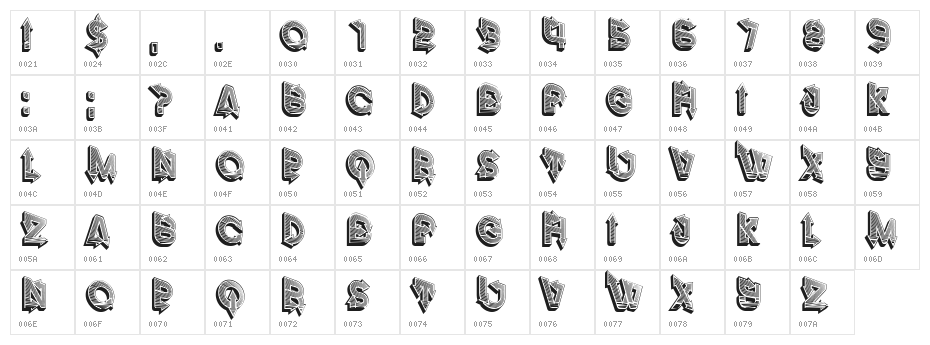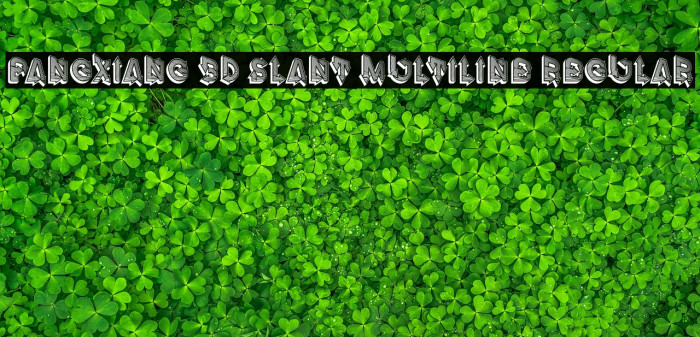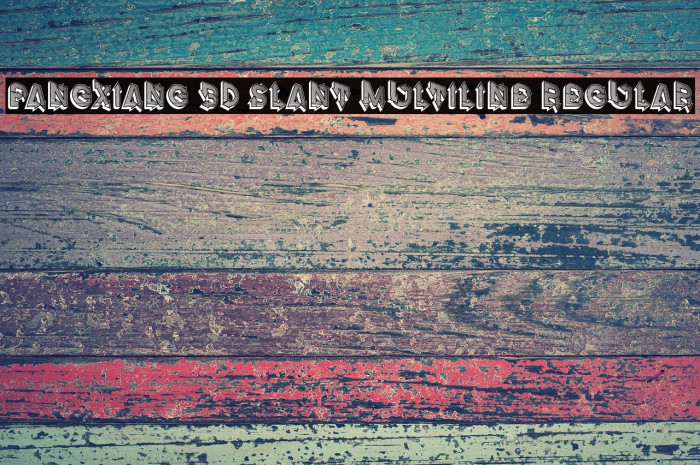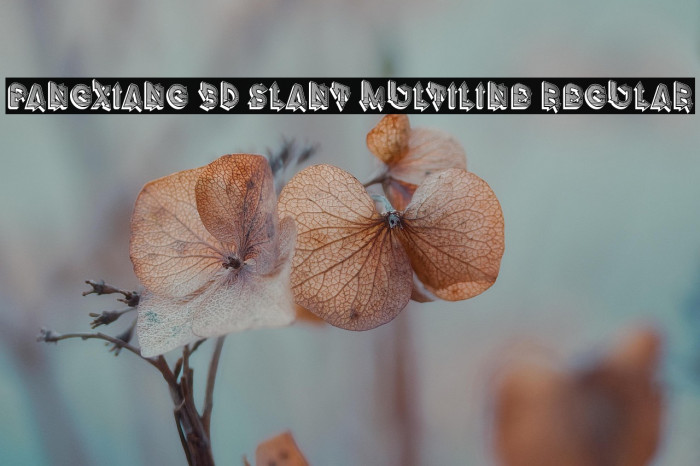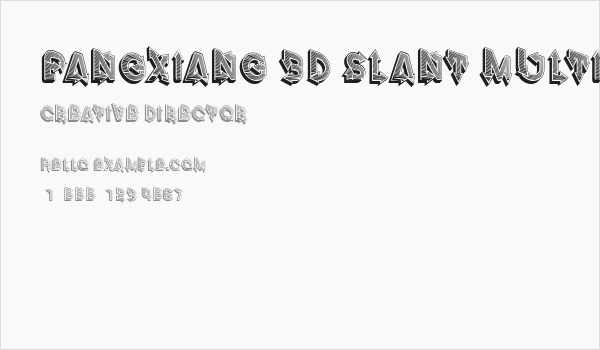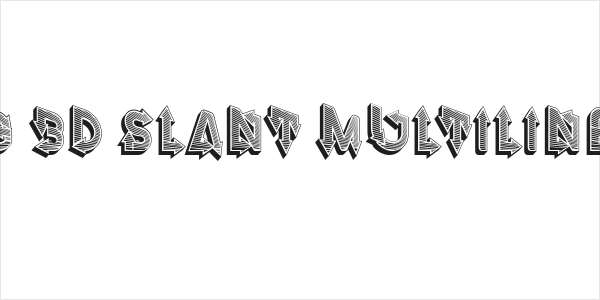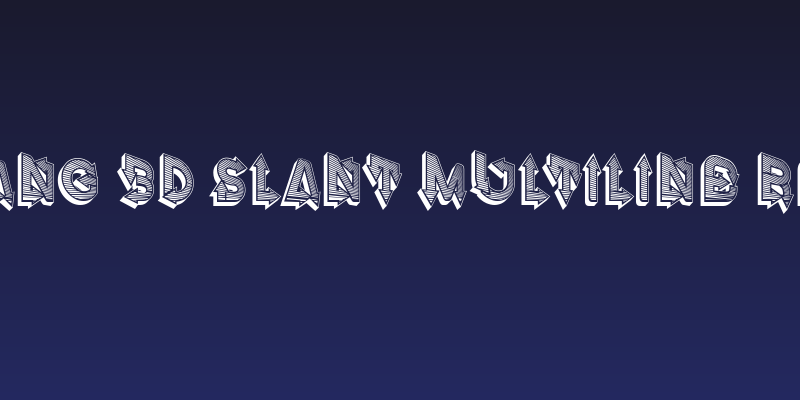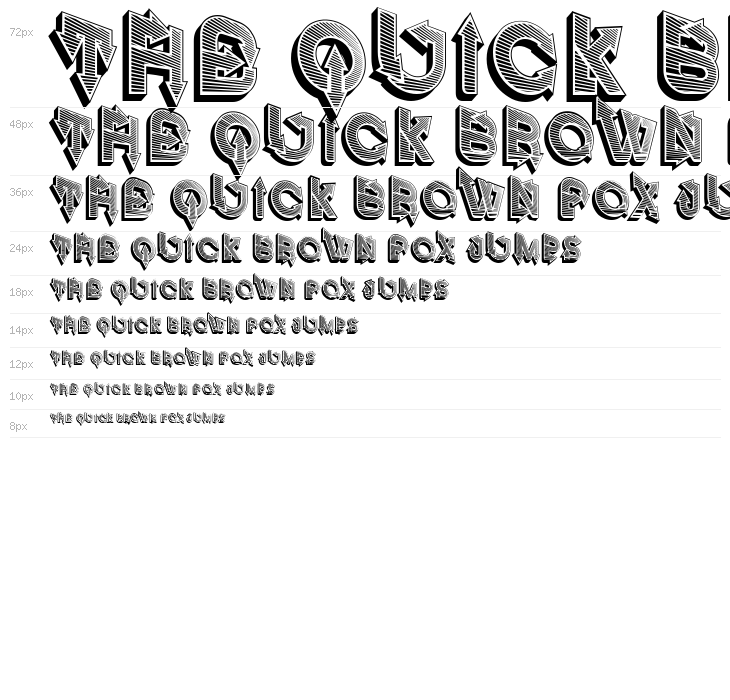
Fangxiang 3D Slant Multiline Regular Font
Fangxiang 3D Slant Multiline Regular Description
This font features a bold, three-dimensional design with a slanted, multiline style. Each character is outlined with multiple parallel lines, creating a layered, shadowed effect that gives depth and dimension. The geometric shapes and sharp angles contribute to a futuristic and dynamic appearance. The font's unique style makes it stand out, with a strong visual impact suitable for eye-catching designs. The characters are evenly spaced, ensuring readability despite the complex design. This font is ideal for projects that require a modern and edgy look.
| Proposed Projects | Ideal for posters, logos, video game graphics, and any project needing a striking, modern aesthetic. |